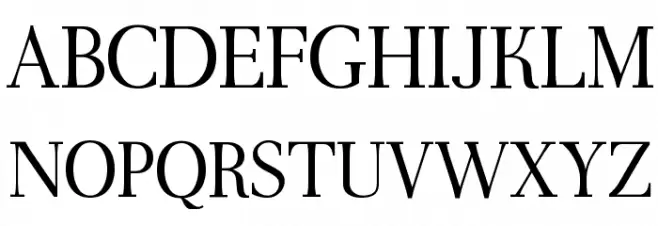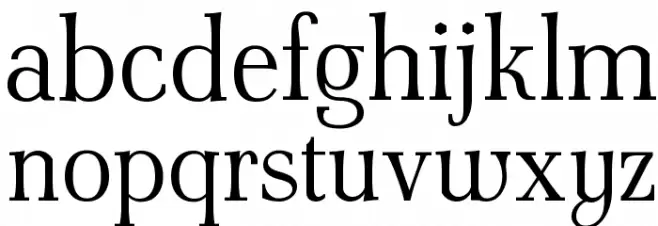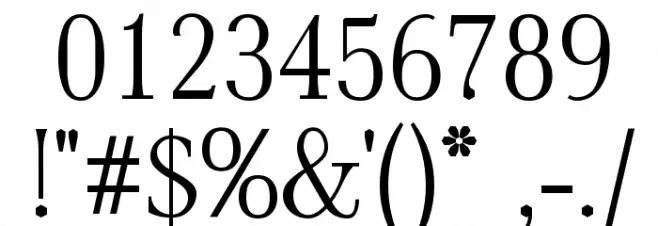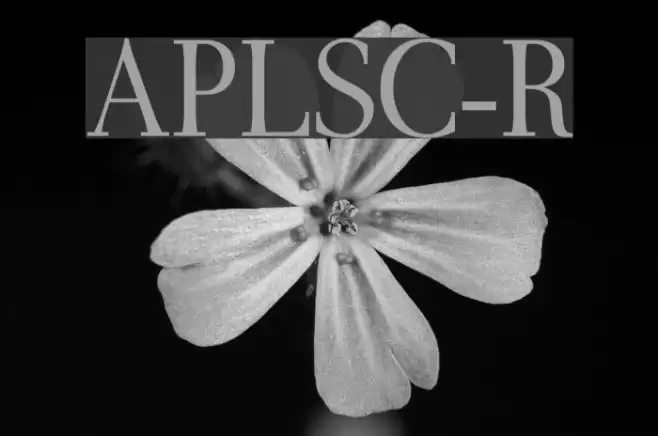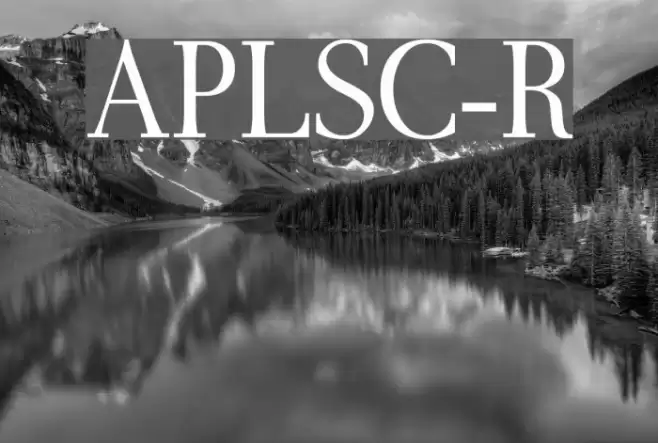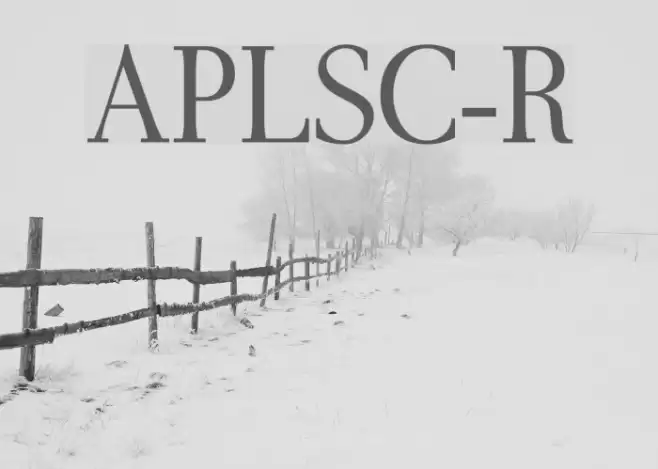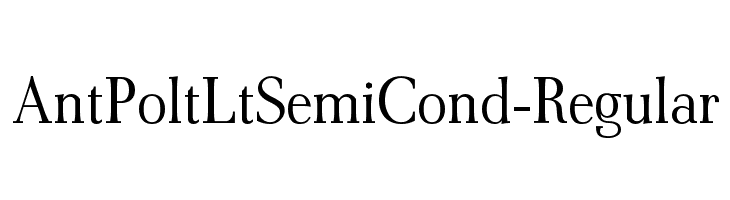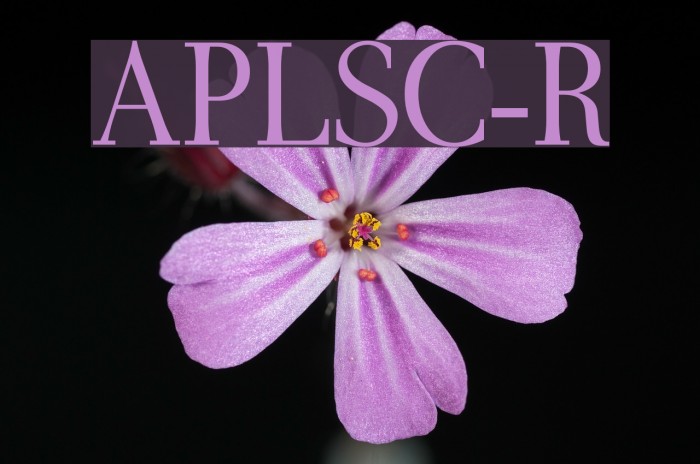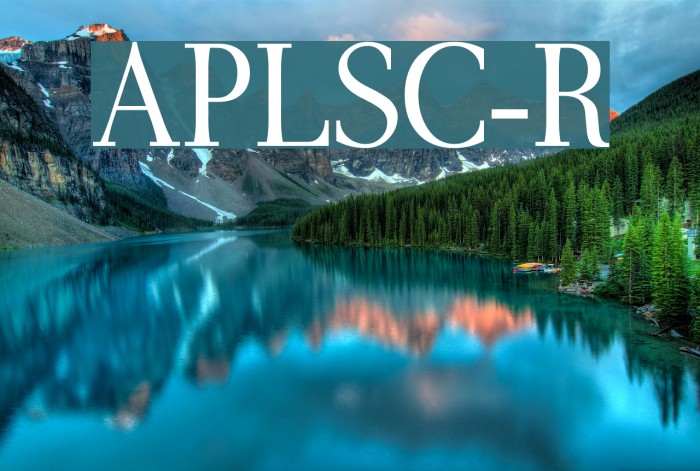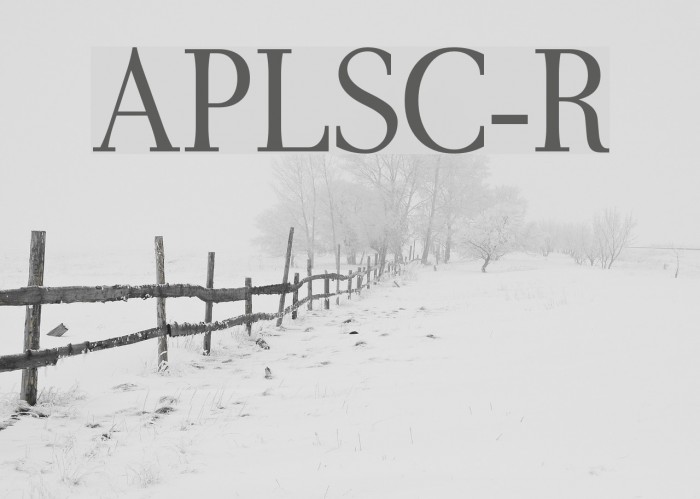
AntPoltLtSemiCond-Regular
This font features a classic serif style with a refined and elegant appearance. The characters exhibit a semi-condensed width, providing a sophisticated and professional look. The uppercase letters are bold and commanding, while the lowercase letters maintain a balanced and harmonious flow. The numerals are clear and distinct, making them suitable for various applications. Special characters are well-integrated, enhancing the font's versatility. The overall design is timeless, making it ideal for projects that require a touch of elegance and tradition.
A classic serif font with a semi-condensed style, offering elegance and professionalism.
- Proposed Projects: Ideal for editorial design, book covers, formal invitations, and branding materials.
- Category: Serif
- Overall Style: Classic